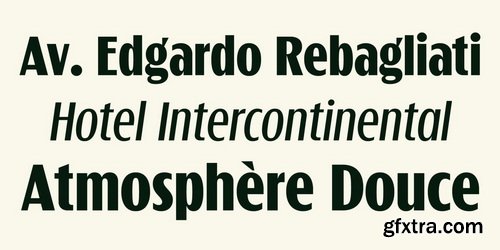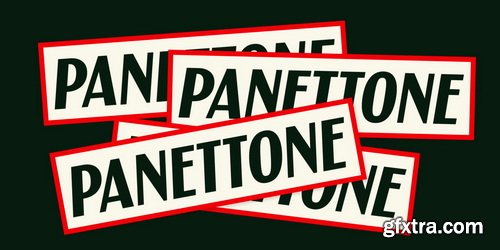
- Tortillez is a sans serif display typeface inspired by the bold presence of Koloss, reimagined with more compact proportions and refined for contemporary use. It blends solid, clean shapes with subtle humanist touches, adding personality without sacrificing legibility. Slight stroke contrasts enhance its distinctive character, making it ideal for headlines, posters, covers, and signage.